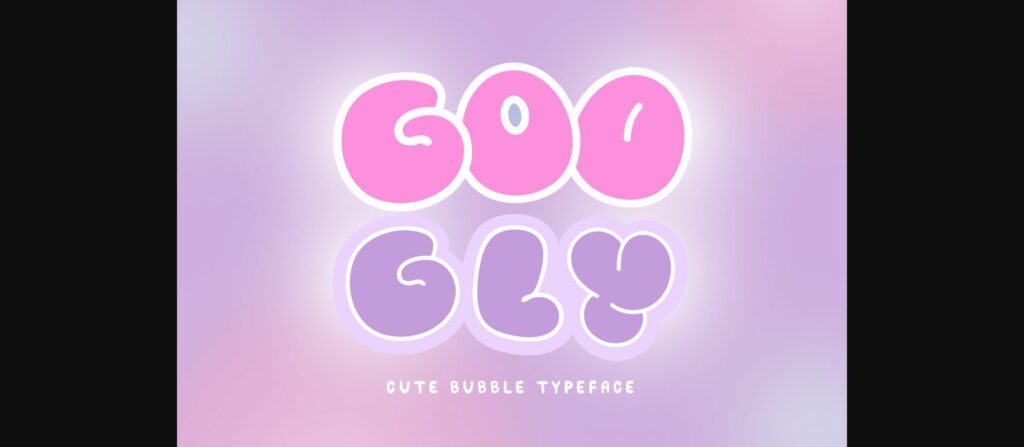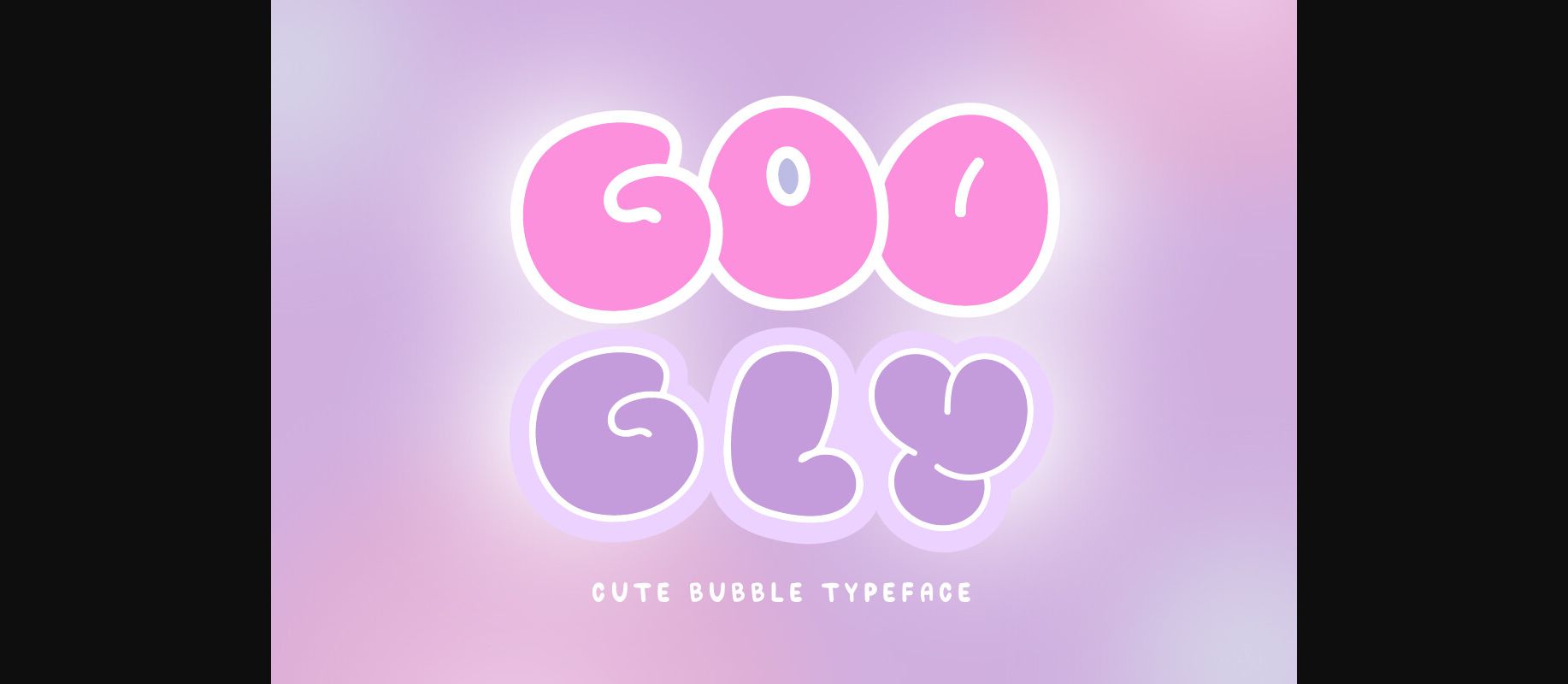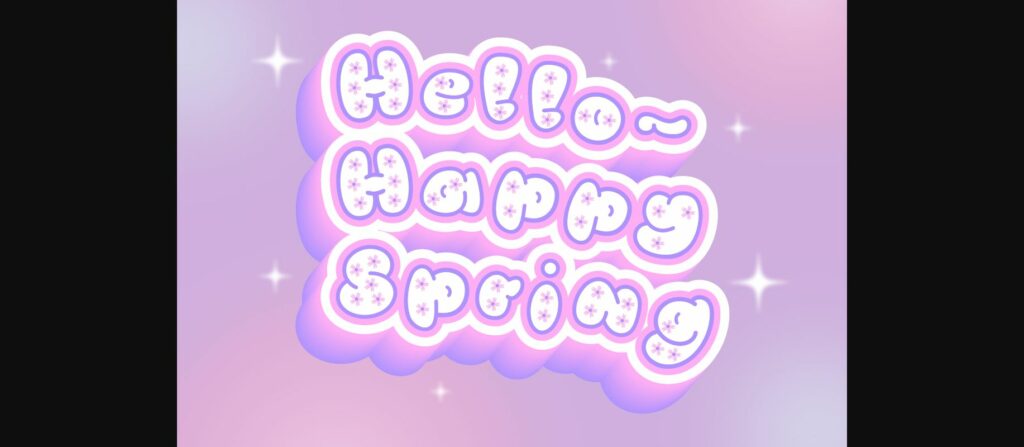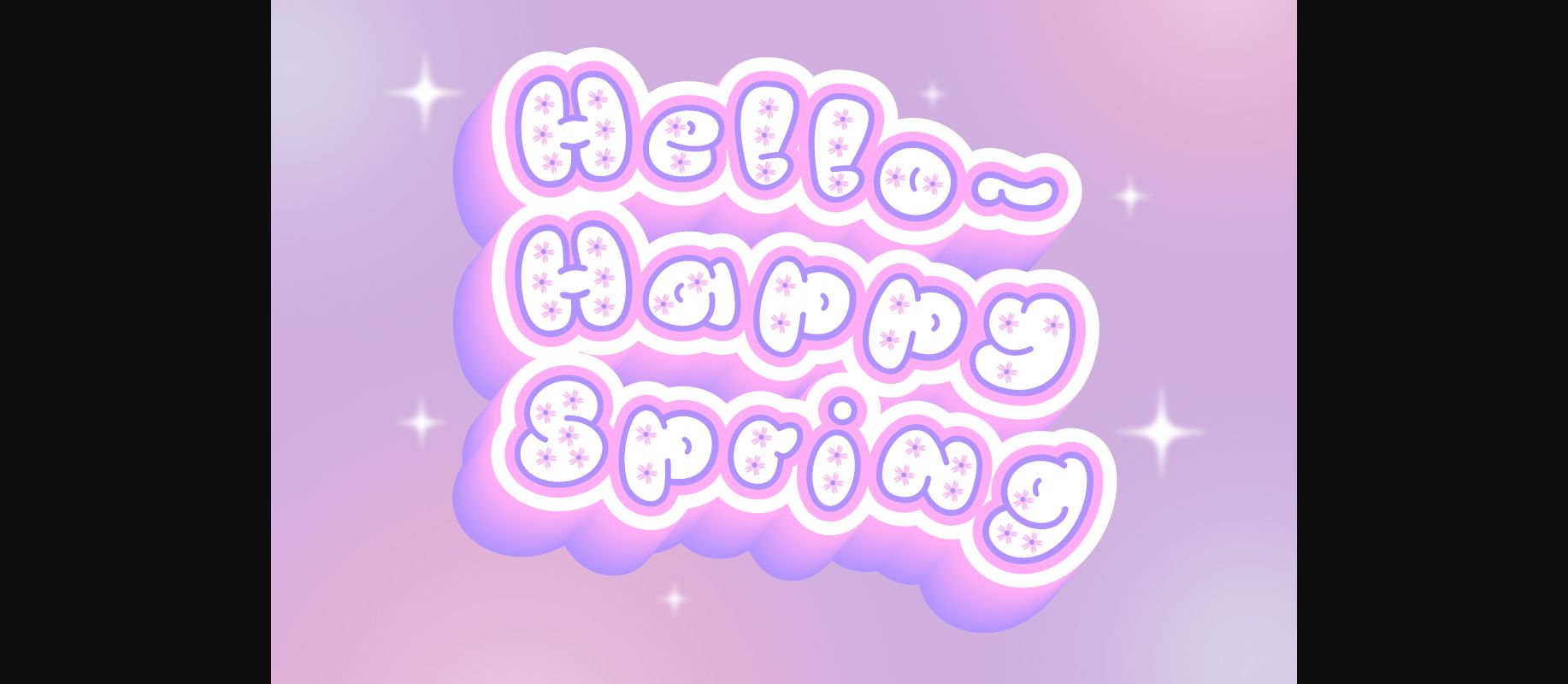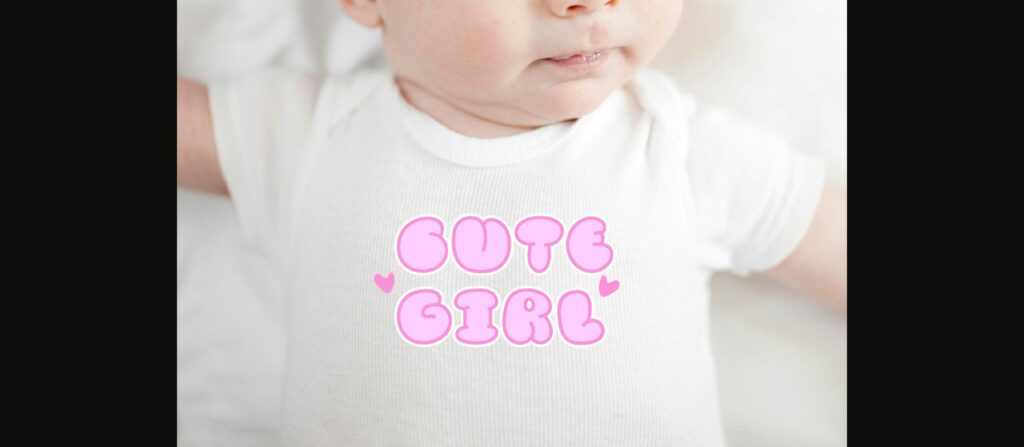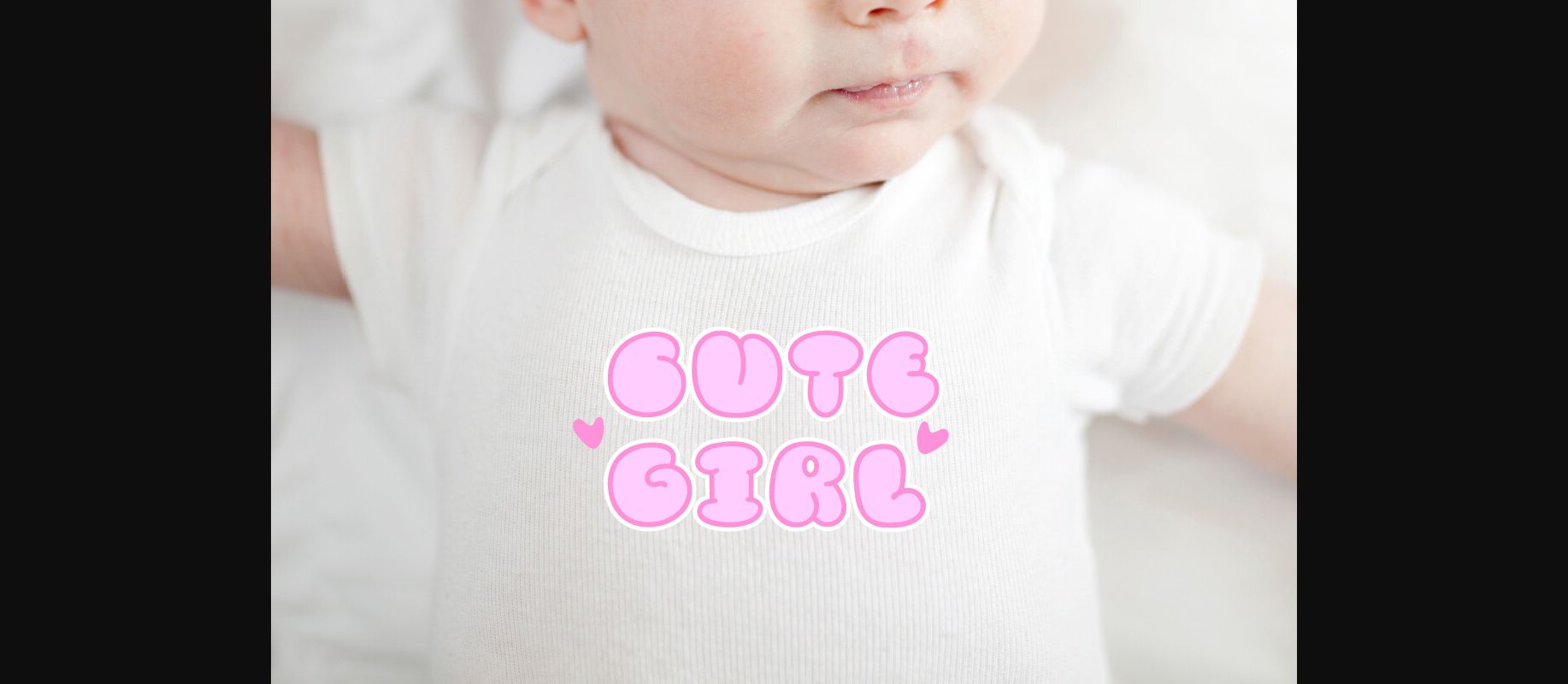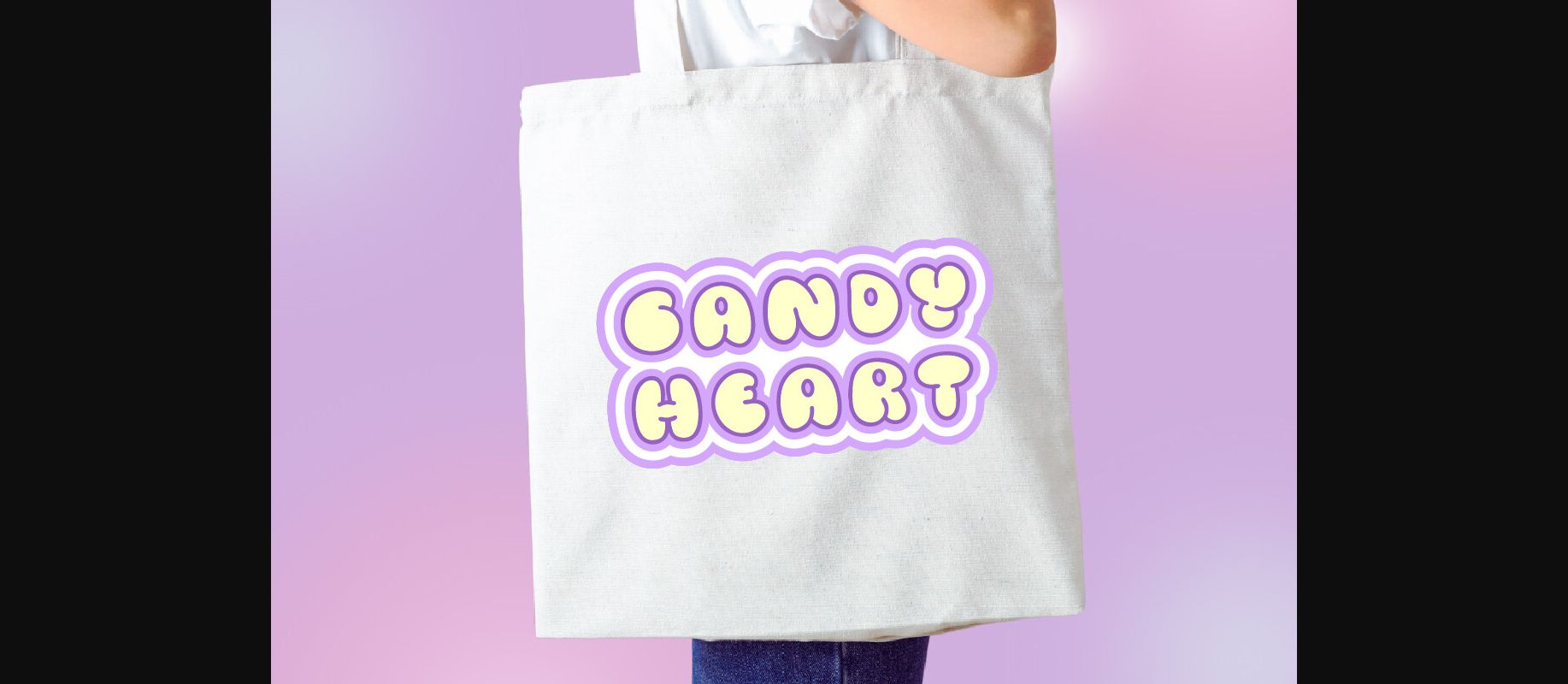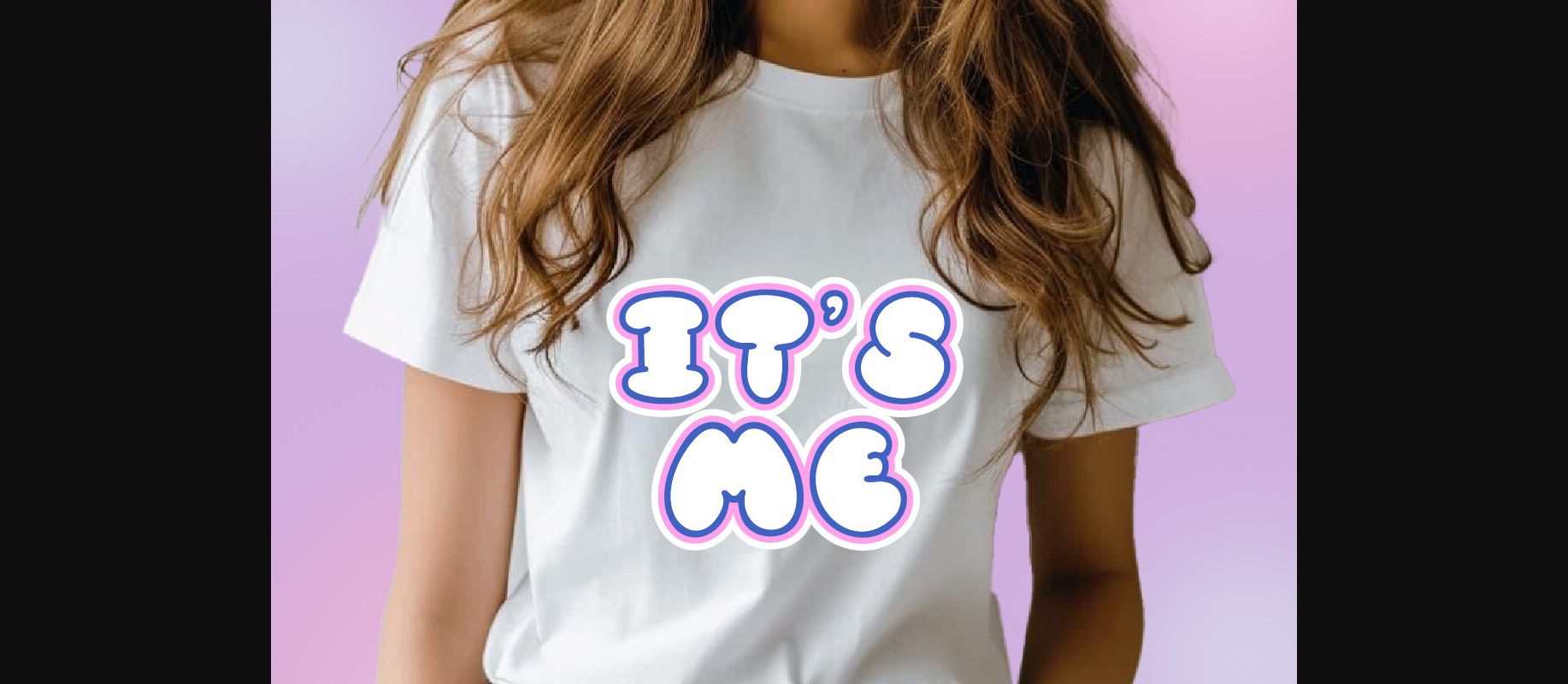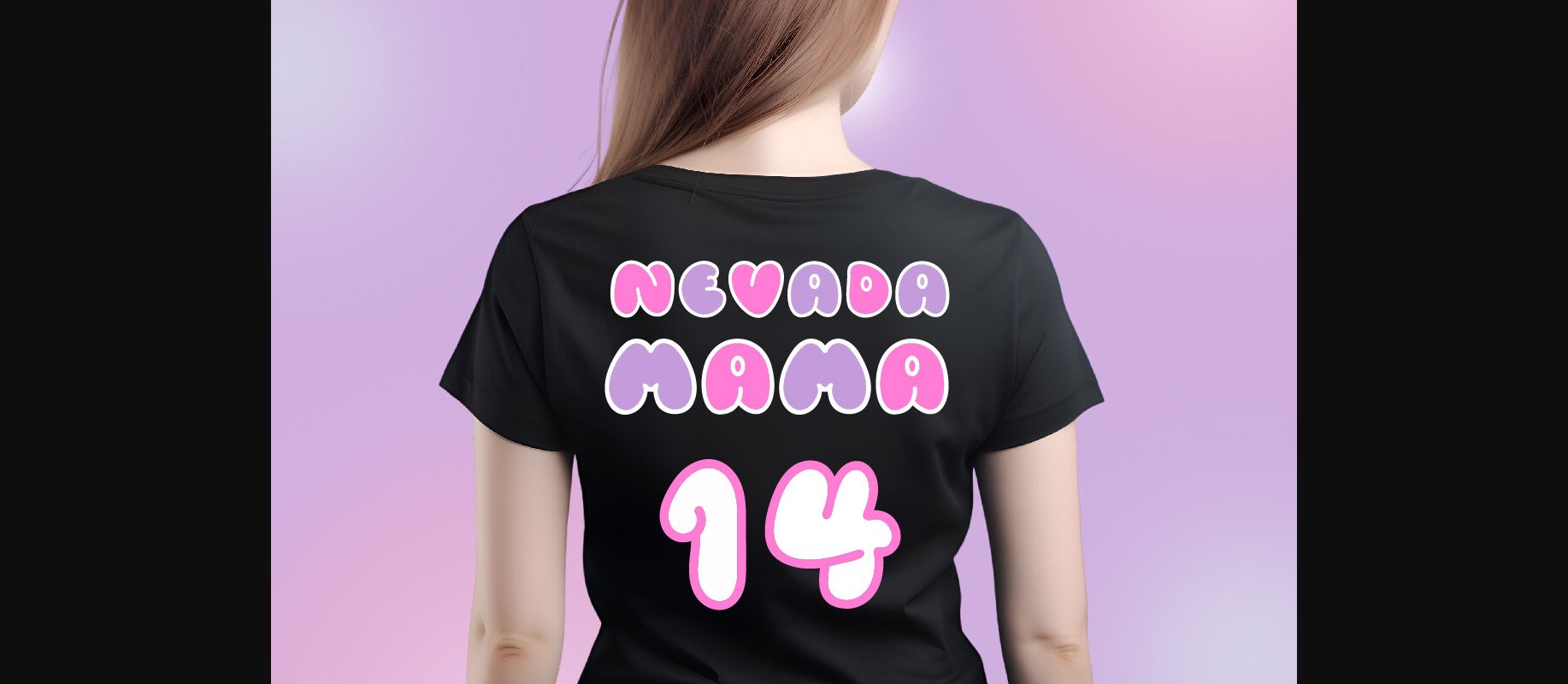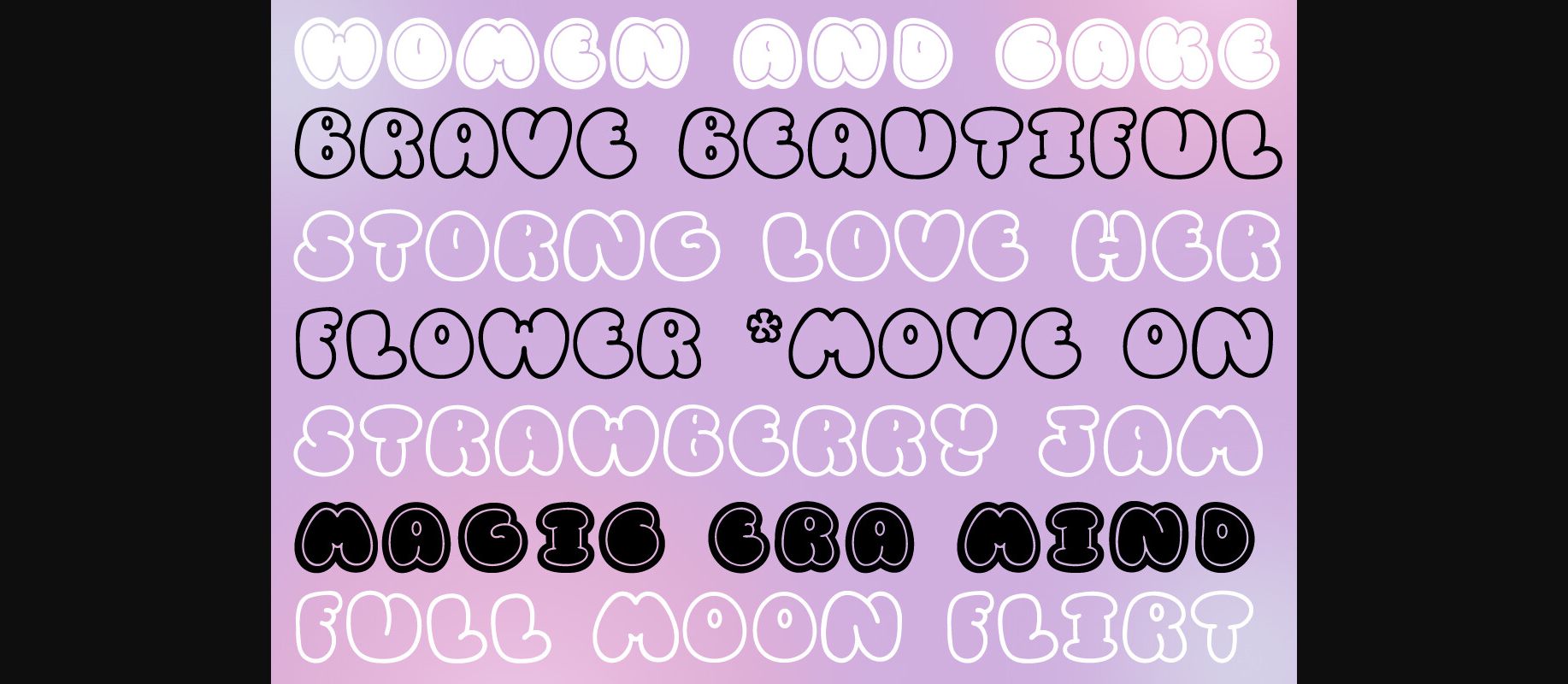
Googly Font
About Googly Font
The Googly Cute Bubble Typeface is characterized by its adorable and childlike appearance, featuring rounded or bubbly letterforms that exude a sense of cuteness and friendliness. It’s a font suited for creating atmospheres that are joyful and confident or any other projects requiring a focus on fun and emotional connection in communication.